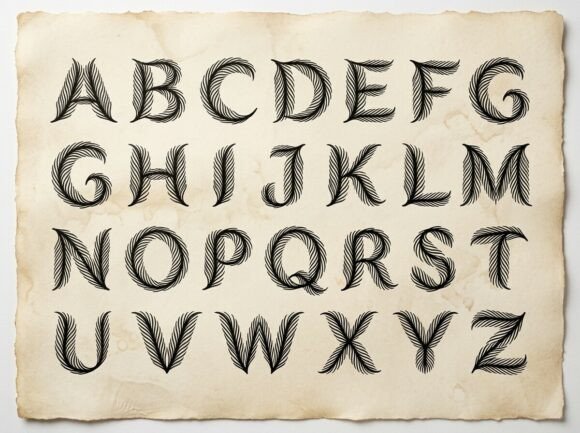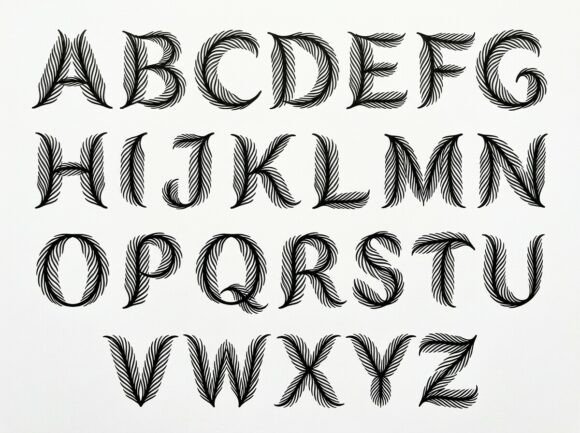
Experience the Elegance of Adams Font: A Victorian-Inspired Masterpiece
Are you searching for a font that embodies the essence of Victorian-era sophistication? Look no further than Adams, a premium ornate display font that exudes elegance and refinement. With its intricate, hand-drawn design, Adams is perfect for designers and crafters seeking to add a touch of luxury to their projects.
The Art of Adams Font
Adams font is a masterpiece of typographic design, featuring bold letterforms constructed from hundreds of delicate, hand-drawn plumes and feathered flourishes. The rhythmic texture and intricate linework evoke the craftsmanship of classical engraving and antique currency, making it an extraordinary choice for high-end applications.
Each letterform in Adams is carefully crafted to showcase the beauty of Victorian-inspired design. The font’s ornate details and flourishes are meticulously drawn to create a sense of handcrafted prestige, perfect for luxury brands, heritage companies, and artisanal businesses.
Perfect for High-End Applications
Adams font is ideal for a range of high-end applications, including:
- Spirit Labels: Add a touch of sophistication to your wine, whiskey, or craft beer labels with Adams font.
- Boutique Apothecary Branding: Create a luxurious brand identity for your skincare, fragrance, or herbal remedy business with Adams font.
- Vintage Book Covers: Transport your readers to a bygone era with Adams font, perfect for historical fiction, romance, or classic literature book covers.
- Artisanal Signage: Elevate your storefront, restaurant, or event signage with Adams font, guaranteed to make a lasting impression.
Crafting a Logo or Header with Adams Font
Whether you’re designing a logo for a heritage brand or a standout header for a luxury event, Adams font delivers a sense of handcrafted prestige and sophisticated, historical charm to every word. Here are some tips for getting the most out of Adams font:
- Use it sparingly: Adams font is designed to make a statement, so use it sparingly to maximize its impact.
- Experiment with colors: Try pairing Adams font with rich, jewel-toned colors to enhance its luxurious feel.
- Mix and match: Combine Adams font with simpler typography to create visual interest and hierarchy.
The Benefits of Using Adams Font
So why choose Adams font for your next project? Here are just a few benefits of using this exceptional typeface:
- Unique and distinctive: Adams font is a one-of-a-kind design that will set your brand or project apart from the rest.
- High-end feel: Adams font exudes luxury and sophistication, perfect for high-end applications.
- Versatile: Adams font can be used for a range of projects, from logos and branding to signage and book covers.
In conclusion, Adams font is a true masterpiece of typographic design, offering a unique blend of Victorian-inspired elegance and luxurious sophistication. Whether you’re a designer, crafter, or business owner, Adams font is the perfect choice for anyone seeking to add a touch of high-end style to their project. With its intricate, hand-drawn design and versatile applications, Adams font is sure to become a favorite in your typography collection.